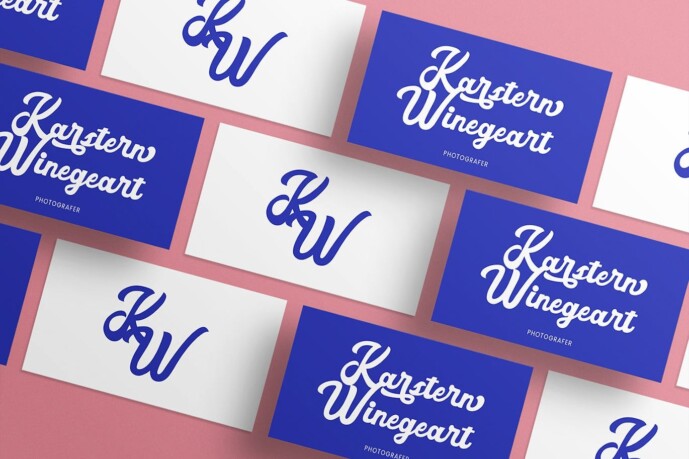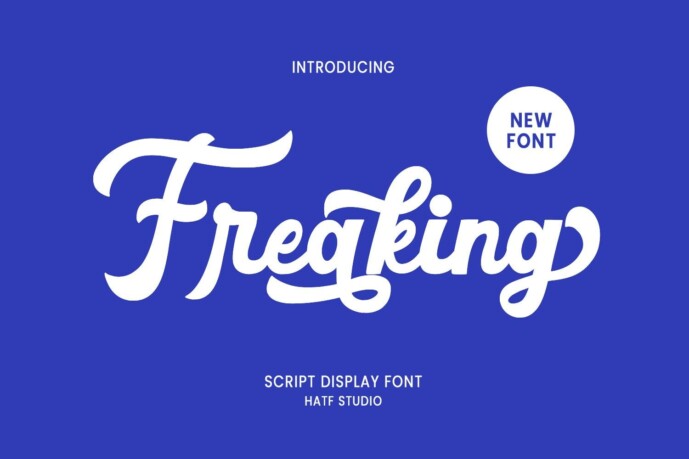
Freaking Font
Freaking Font is a script display font. A type of font that displays an elegant and artistic handwriting style. With a twisted feel, this font has an attractive feel and attracts attention. Each letter is designed with careful detail, giving a creative and unique impression to each written word. With its fluid and expressive characteristics, this font is suitable for design projects that want to display a personal and artistic touch. From the poster title to the eye-catching logo design, Freaking makes an unforgettable impression and enriches the visual aesthetics of a work.